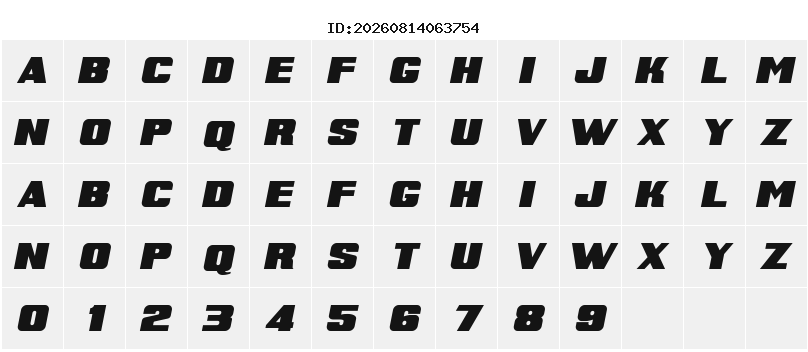
Super Retro M54 Preview
• Font Name: Super Retro M54
• Font Style: Italique
• Full Font Name: Super Retro M54 Italique
• Designer: Mohammed Rahman
• Manufacturer: M54 (justme54s)
About Super Retro M54.ttf
Super Retro M54.ttf is a modern, elegant sans-serif font designed for ultimate readability and visual harmony. Perfect for branding, headlines, web design, and print materials.